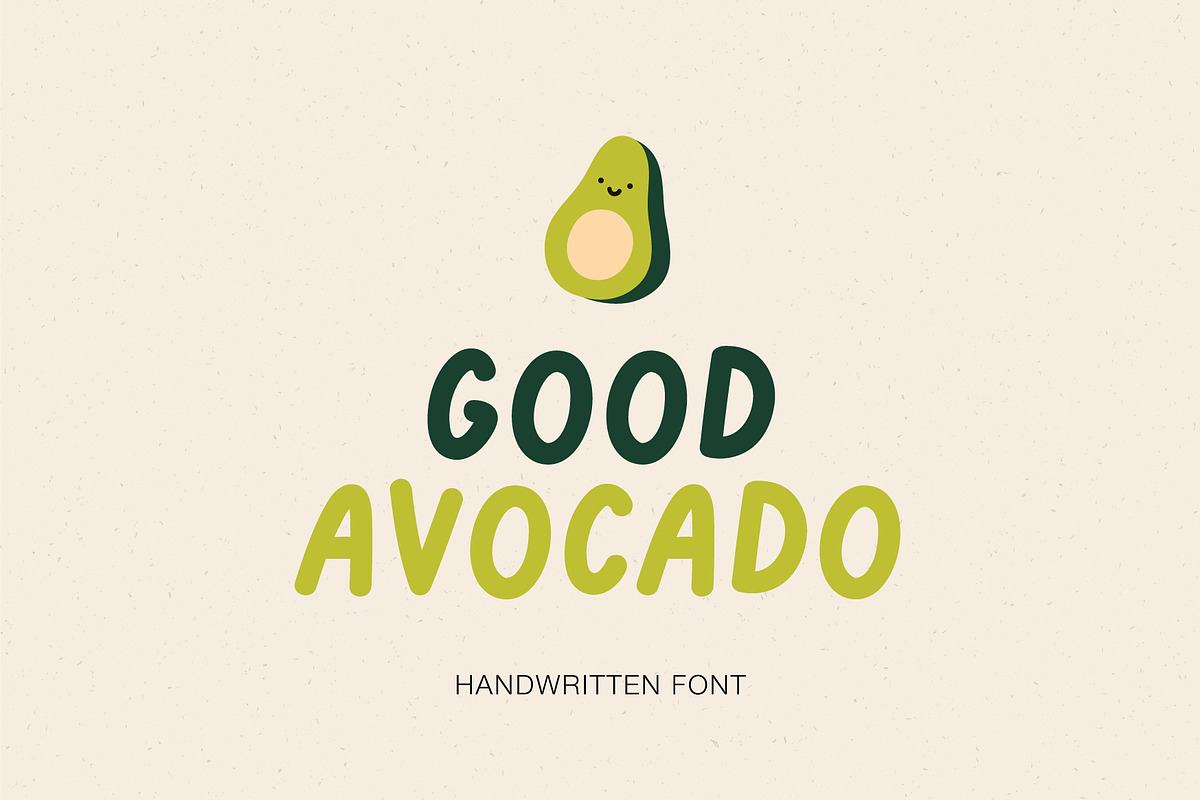
Good Avocado Handwritten Font Free Download is a fresh and friendly typeface that brings a casual, personal feel to your designs. With its smooth lines and quirky charm, this handwritten font is perfect for product packaging, greeting cards, social media posts, logos, and anything that needs a warm, approachable vibe.
Whether you're crafting a cheerful brand or designing cozy content, Good Avocado adds that handwritten touch that feels authentic and fun. It’s the perfect pick for creatives who want a natural, playful, and modern handwritten look.